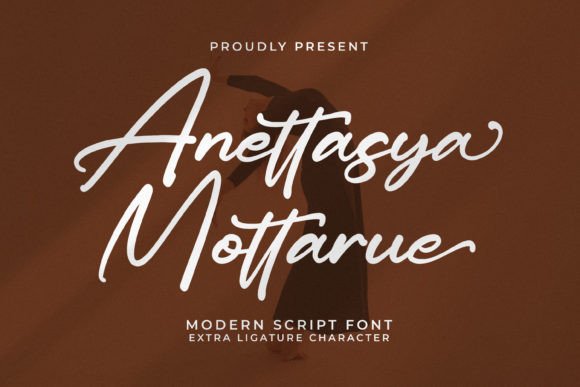
Anettasya Mottarue Font: Elevate Your Designs with Elegance and Sophistication
In the world of design, typography plays a crucial role in conveying the tone and personality of a project. For designers and crafters seeking a premium modern script font to elevate their creations, Anettasya Mottarue Font is an exceptional choice. Developed by Integritype Studio, this stunning font is perfect for a wide range of applications, from logos and branding projects to homewares designs, product packaging, and more.
What is Anettasya Mottarue Font?
Anettasya Mottarue Font is a modern script font that exudes elegance and sophistication. Its unique and flowing design makes it ideal for projects that require a touch of luxury and refinement. With its clean lines, beautiful swashes, and intricate details, this font is sure to add a level of professionalism and style to any design.
Key Features of Anettasya Mottarue Font
- Modern Script Design: Anettasya Mottarue Font boasts a modern script design that is both elegant and versatile.
- Premium Quality: As a premium font, Anettasya Mottarue is crafted with high-quality lines and intricate details, ensuring a sophisticated look.
- Wide Range of Applications: This font is suitable for various projects, including logos, branding, homewares designs, product packaging, mugs, quotes, posters, shopping bags, t-shirts, book covers, business cards, and more.
Benefits of Using Anettasya Mottarue Font
By incorporating Anettasya Mottarue Font into your designs, you can:
- Elevate Your Brand: Add a touch of luxury and sophistication to your brand with a unique and elegant font.
- Stand Out from the Crowd: With its distinctive design, Anettasya Mottarue Font can help your project stand out in a crowded market.
- Enhance Your Designs: This font’s intricate details and swashes can add a level of depth and visual interest to your designs.
- Save Time: With its ease of use, you can quickly and easily incorporate Anettasya Mottarue Font into your projects, saving you time and effort.
Design Applications for Anettasya Mottarue Font
Anettasya Mottarue Font is versatile and can be used in a variety of design applications, including:
- Logos and Branding: Create a lasting impression with a unique and elegant logo that reflects your brand’s personality.
- Homewares Designs: Add a touch of sophistication to your homewares designs, such as ceramics, textiles, and more.
- Product Packaging: Elevate your product packaging with a premium font that exudes luxury and refinement.
- Mugs and Apparel: Create stunning mugs, t-shirts, and other apparel with a font that is both stylish and easy to read.
Tips for Using Anettasya Mottarue Font
To get the most out of Anettasya Mottarue Font, consider the following tips:
- Experiment with Sizes and Colors: Play with different sizes and colors to find the perfect combination for your design.
- Pair with Complementary Fonts: Pair Anettasya Mottarue Font with complementary fonts to create a visually appealing design.
- Use Swashes and Details: Take advantage of the font’s swashes and intricate details to add depth and visual interest to your design.
Anettasya Mottarue Font is a premium modern script font that can elevate your designs with elegance and sophistication. With its wide range of applications, ease of use, and stunning design, this font is a must-have for designers and crafters seeking to add a touch of luxury to their projects. Whether you’re working on a logo, branding project, or homewares design, Anettasya Mottarue Font is an excellent choice.